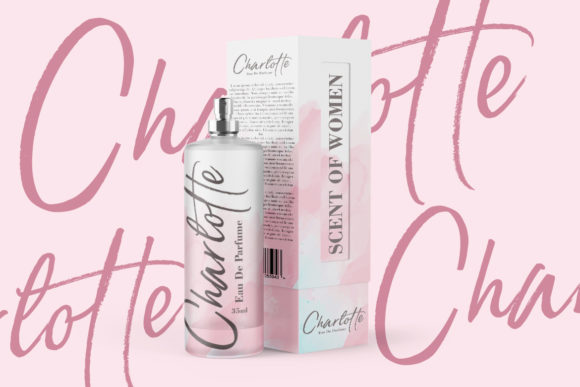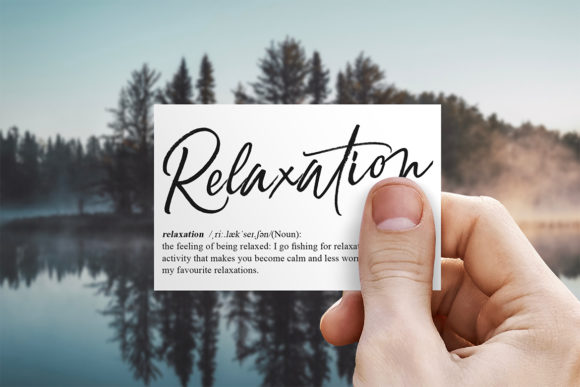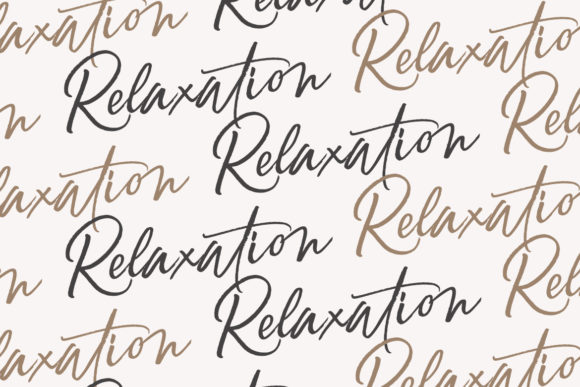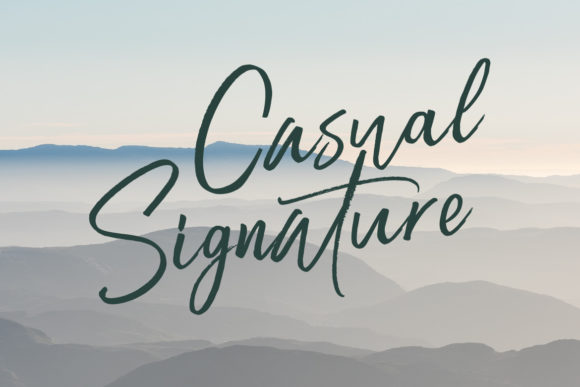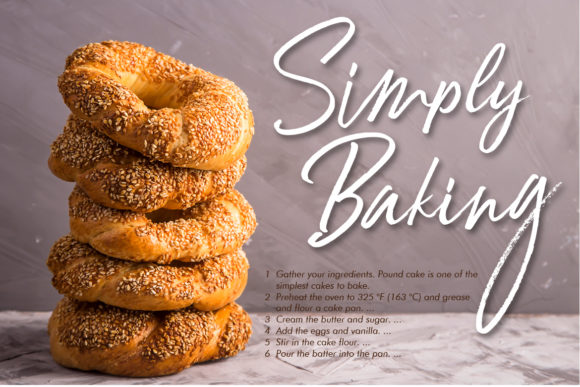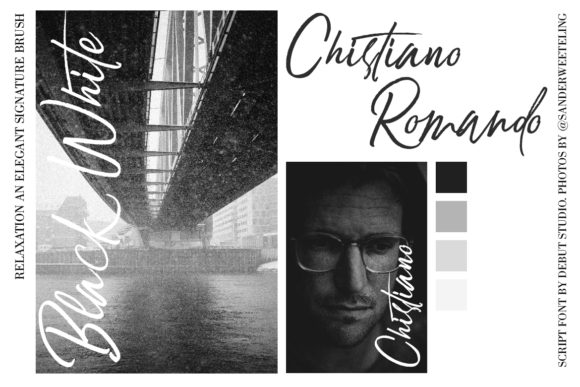
Introduction to Relaxation Font
Have you ever found yourself stuck in a creative rut, struggling to bring your ideas to life? It’s a feeling we’ve all experienced at some point, but it doesn’t have to be that way. Sometimes, all it takes is a fresh perspective to spark inspiration. For designers, a reliable design resource can be just what they need to break through the creative block.
That’s where the Relaxation Font comes in – a unique script font with a contemporary vibe that’s sure to bring a touch of elegance to any project. With its bold charm and transparent background, this font is a must-have for any designer looking to elevate their creative project.
Whether you’re working on a branding project or a simple graphic design, the Relaxation Font offers a high-quality design solution that’s free to download and use. In this article, we’ll take a closer look at what makes this font so valuable for designers and how you can incorporate it into your next project.
Key Features of Relaxation Font
- Unique Blend of Calming Elements: Relaxation Font combines soothing letters and symbols to create a tranquil atmosphere perfect for creative projects.
- Transparent Background: This design resource features a transparent background, allowing you to easily overlay it on any image or color scheme.
- Perfect for Creative Projects: Whether you’re working on a graphic design, digital art, or web design project, Relaxation Font is an ideal design resource to evoke a sense of calm and serenity.
Honest Review: Relaxation Font
I recently stumbled upon the Relaxation Font, and I must say it’s been a game-changer for my creative projects. This font is a great design resource for anyone looking to add a touch of serenity to their work.
- What works well: ✨ The Relaxation Font is incredibly easy to use, with a simple installation process that allows for seamless integration into any design software. The font itself is highly customizable, with a range of weights and styles to suit any project.
- What works well: ✨ The font’s high-quality design makes it perfect for creating a professional and calming atmosphere in any creative project. The transparent background also makes it easy to layer with other design elements.
Overall, I’m thoroughly impressed with the Relaxation Font. Its high quality, versatility, and ease of use make it an excellent addition to any designer’s toolkit. Whether you’re working on a free download project or a high-end creative project, this font is sure to deliver.
The Relaxation Font is a versatile and soothing design resource ideal for creative projects that require a calming atmosphere. With its high-quality typography, this font is perfect for designers looking to add a touch of serenity to their work.